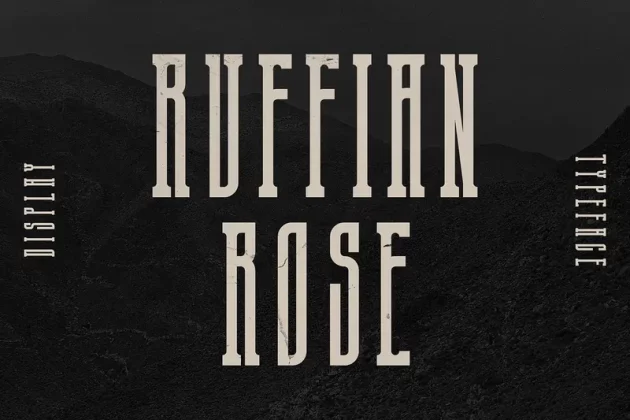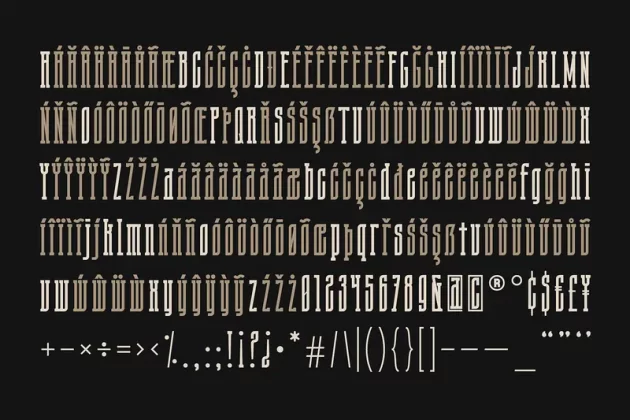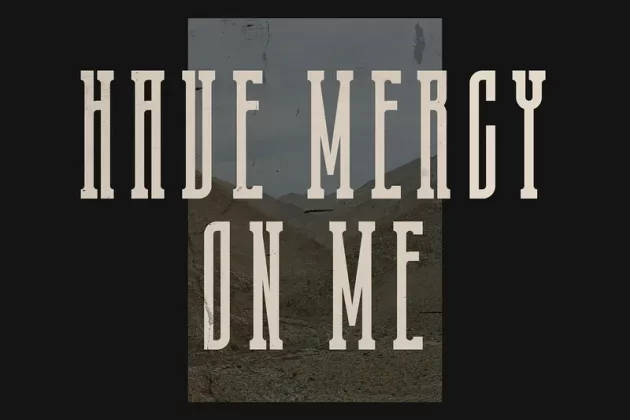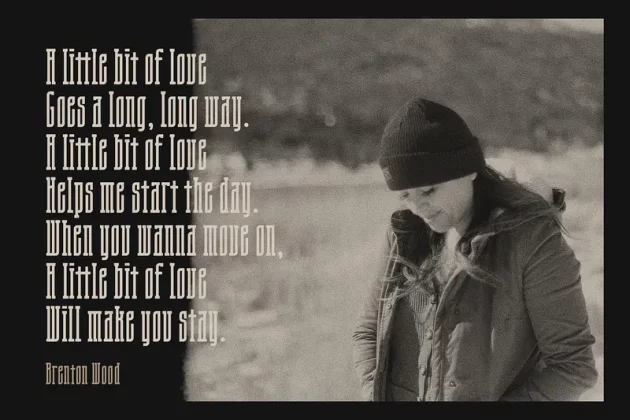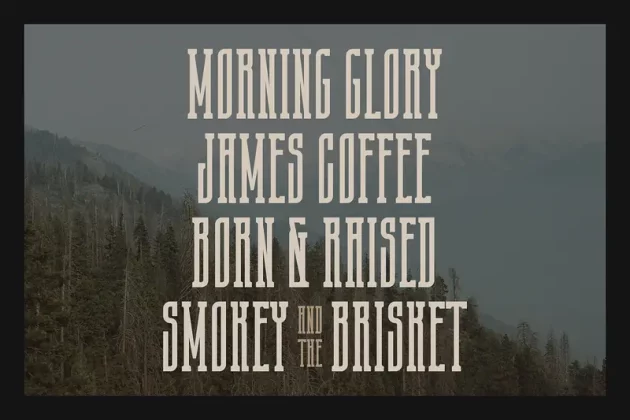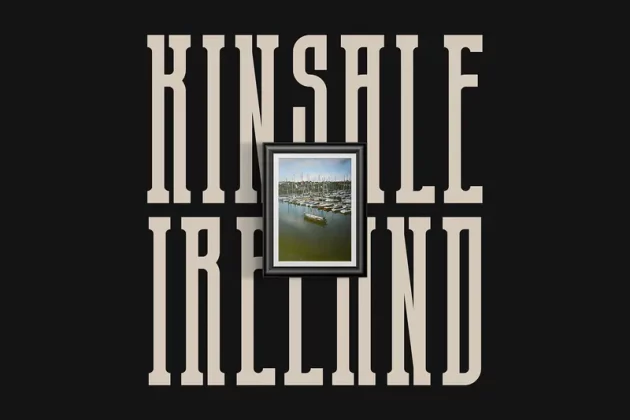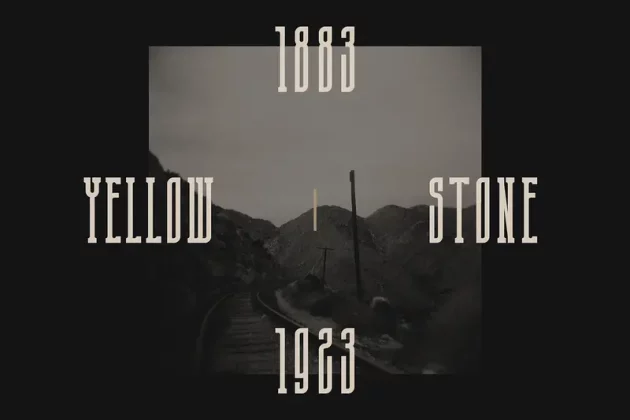
Ruffian Rose Font
About Ruffian Rose Font
Ruffian Rose is a unique slab serif typeface, fully equipped with multi-language support, special characters, and symbols.
Now available in condensed, regular, and wide widths!